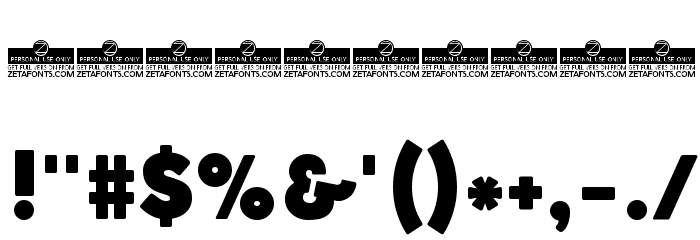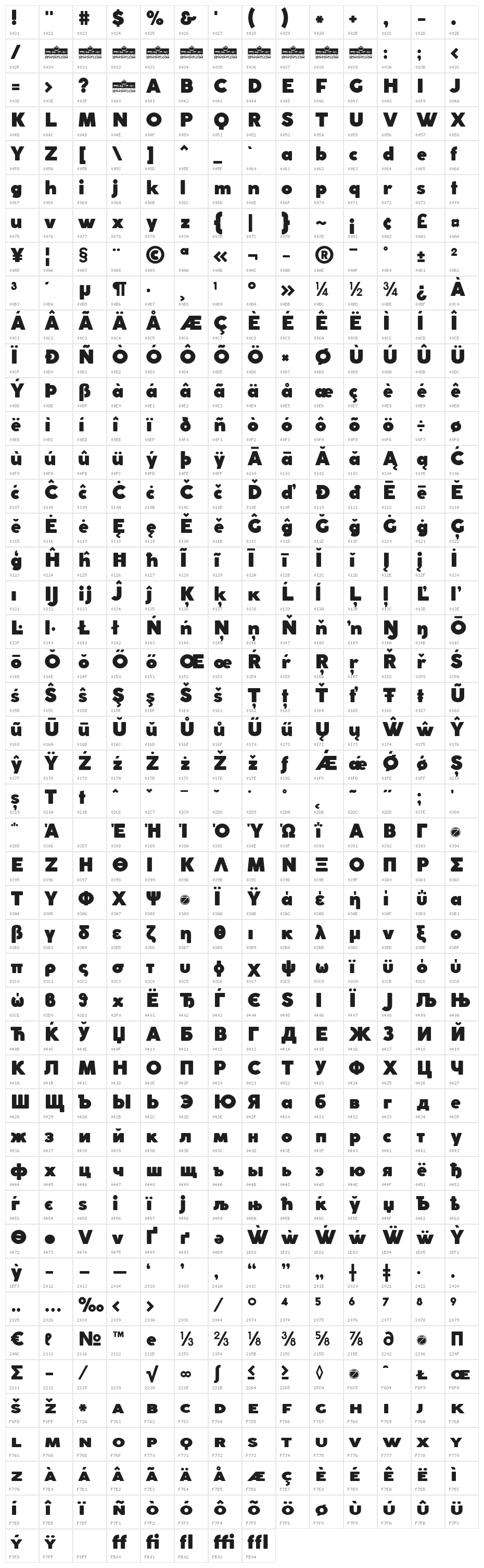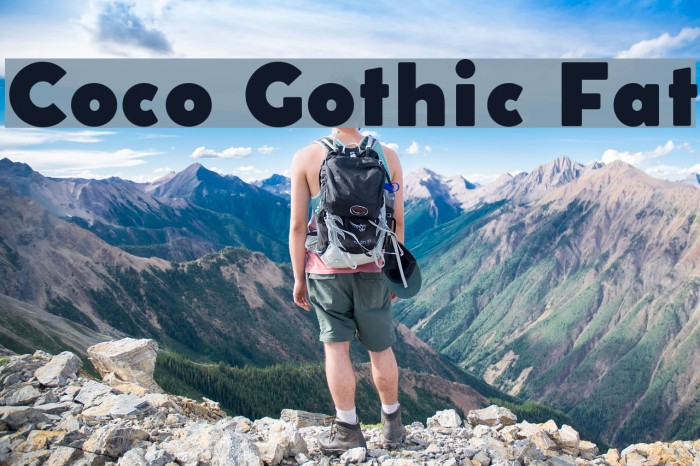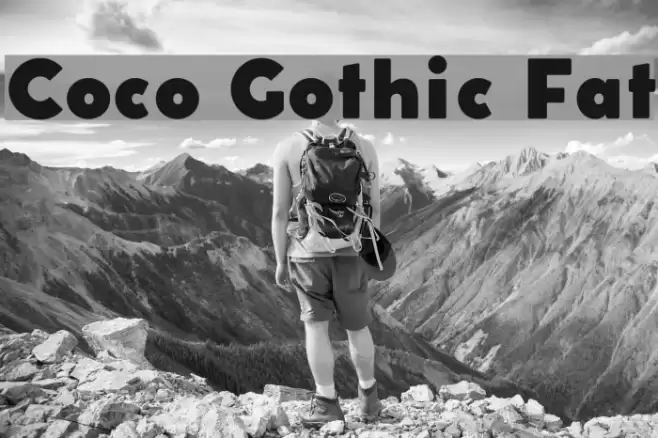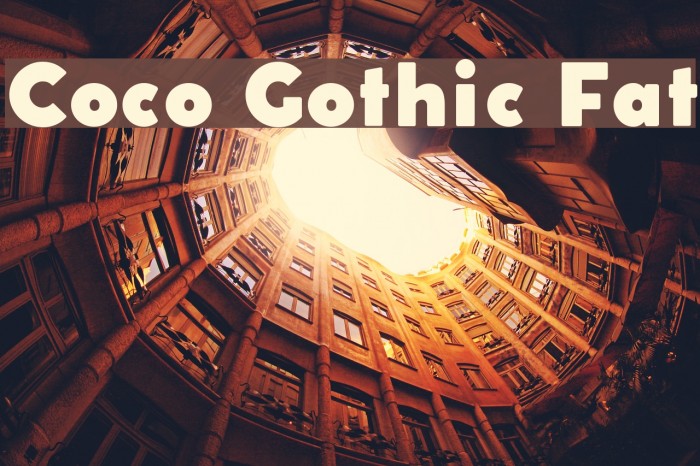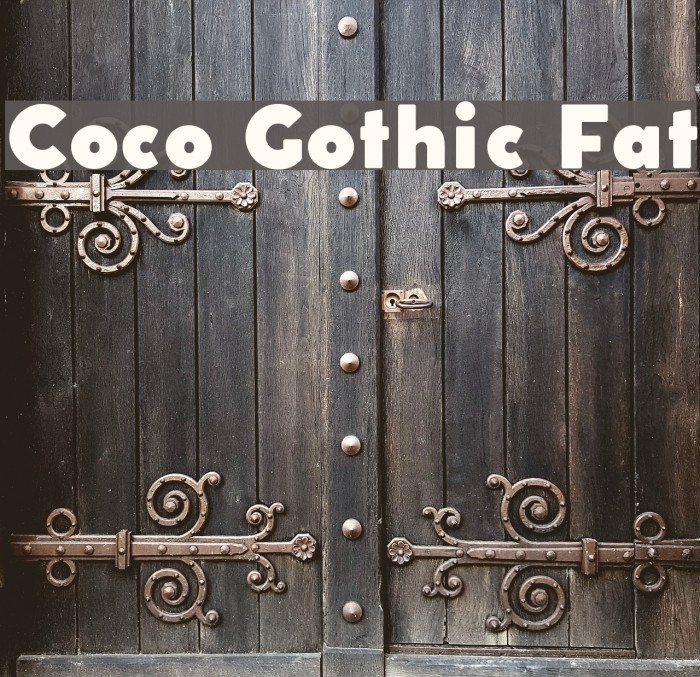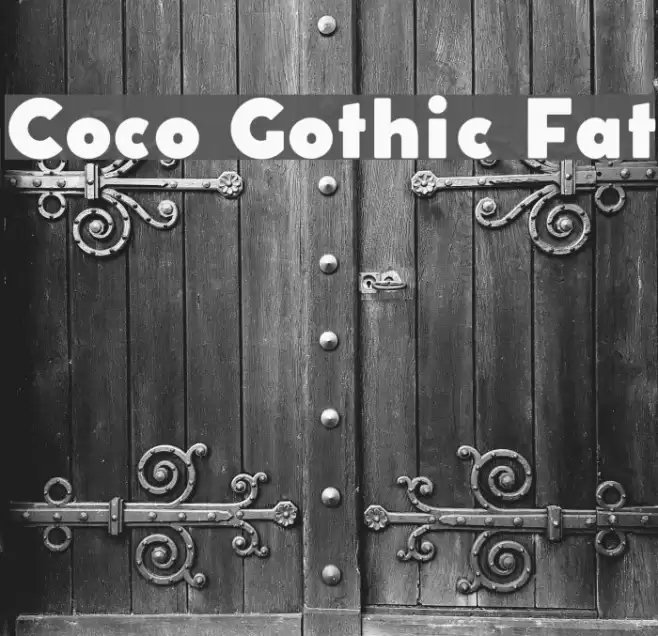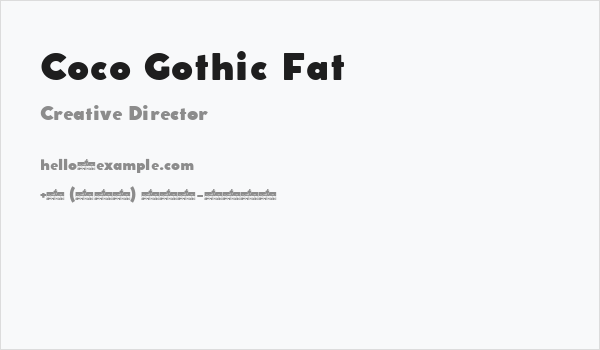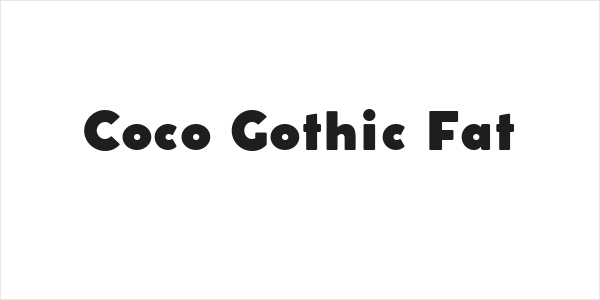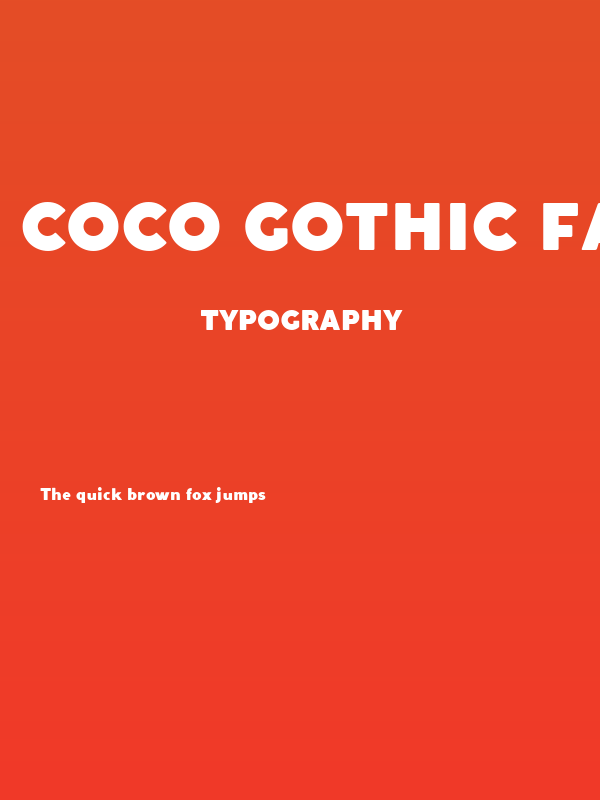
Coco Gothic Fat Font
Coco Gothic Fat Description
This font features a bold and geometric design with a strong presence. The characters are crafted with uniform stroke widths, giving it a modern and clean appearance. The uppercase letters are particularly striking, with a solid and robust look that commands attention. The lowercase letters maintain the same boldness, ensuring consistency across different text cases. The numerals and special characters are designed to match the overall style, providing a cohesive visual experience. This font is ideal for projects that require a contemporary and impactful typeface.
| Proposed Projects | Ideal for branding, headlines, posters, and advertising materials where a strong visual impact is desired. |